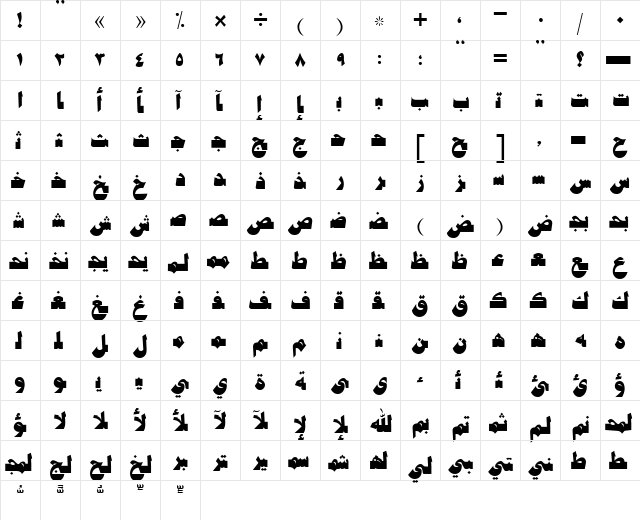
AYM Shaty S_U normal. ۯV"(סx
Design Context for AYM Shaty S_U normal. Typeface
AYM Shaty S_U normal. offers clean, dependable letterforms without strong stylistic allegiance, making it a practical choice for designers who need flexibility.